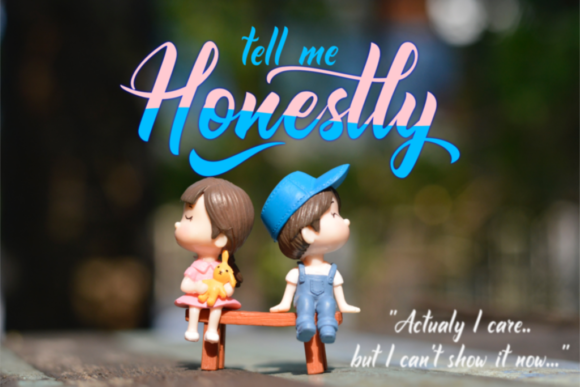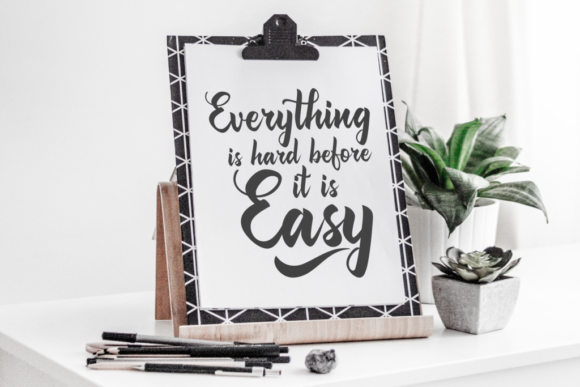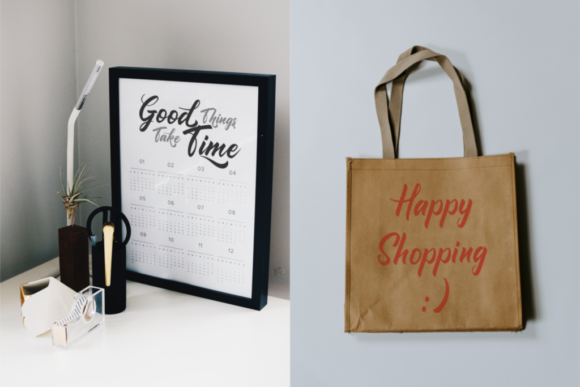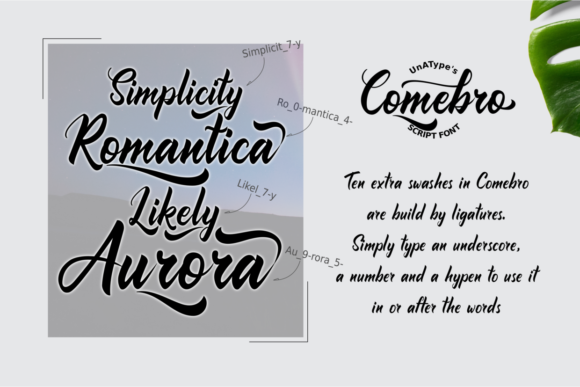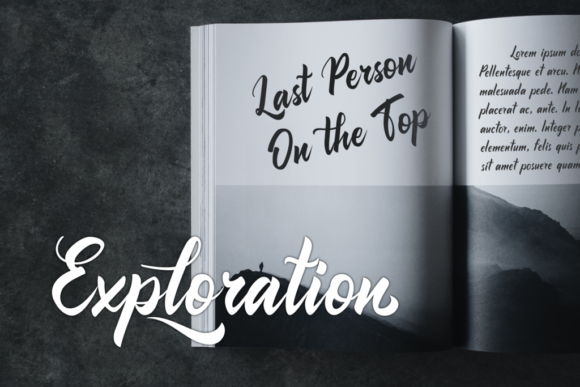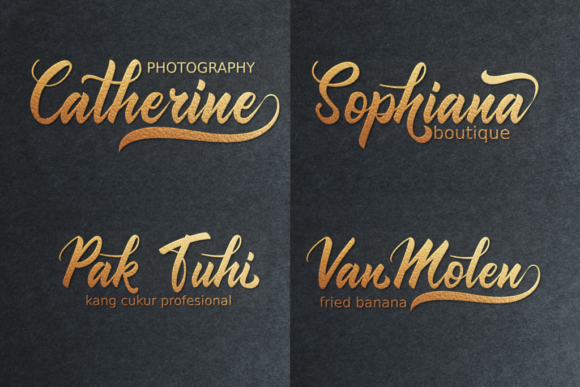
Introduction to Comebro Font
Comebro is a gorgeous and unique script font with a playful feel.
Fall in love with its stunning swashes .
Key Features of Comebro Font